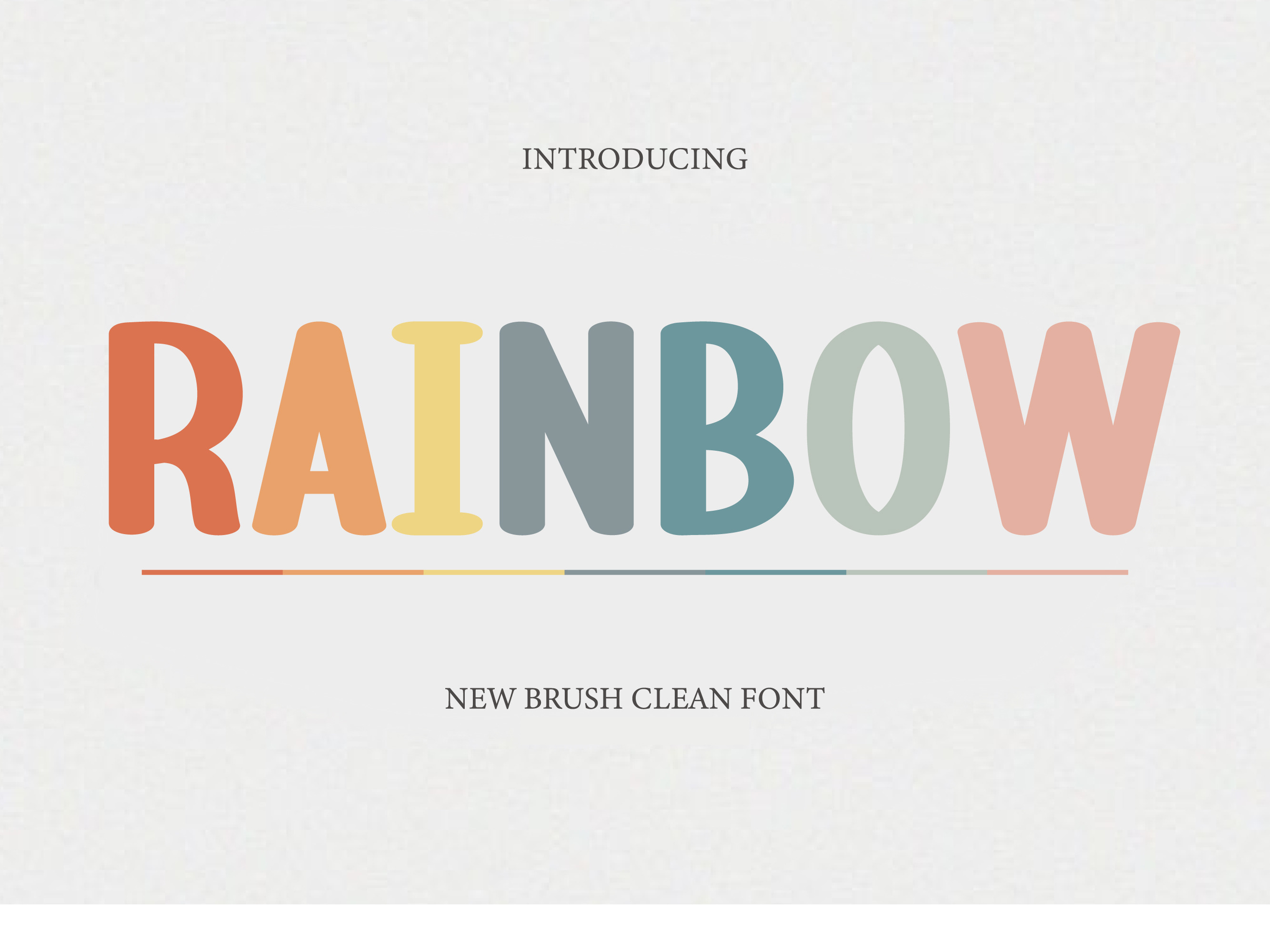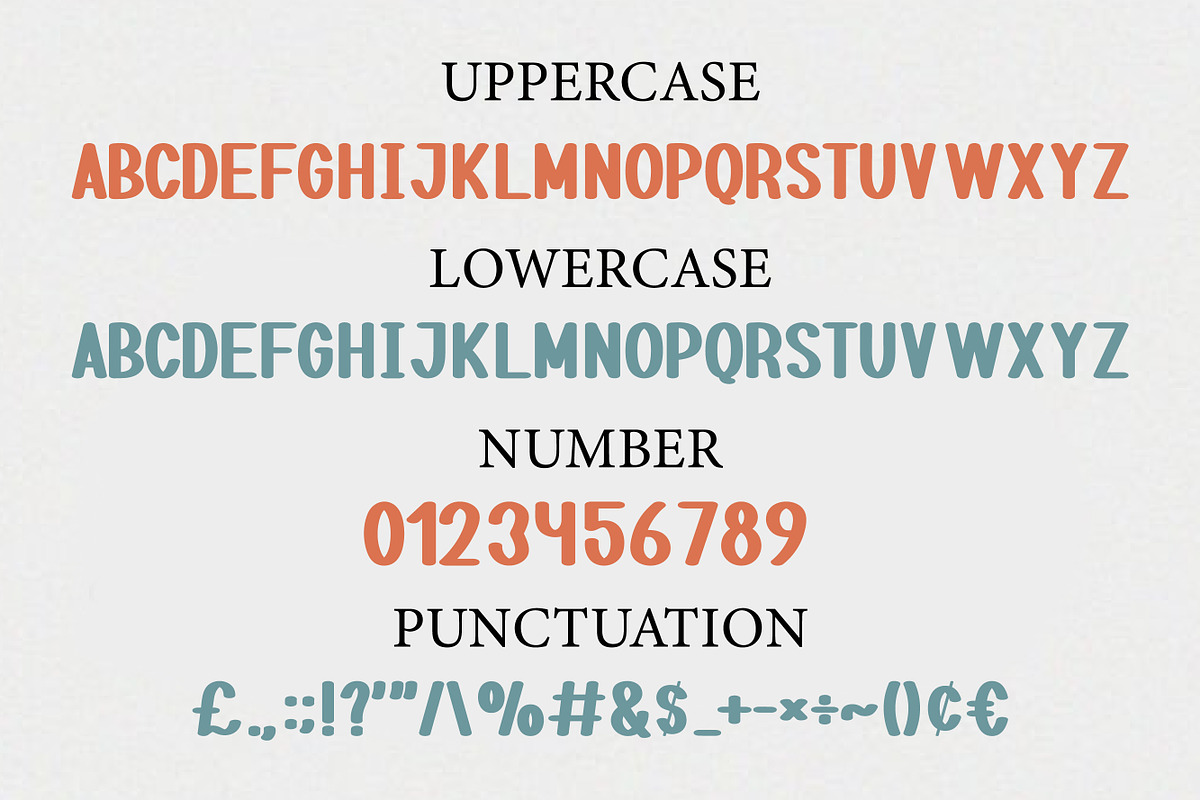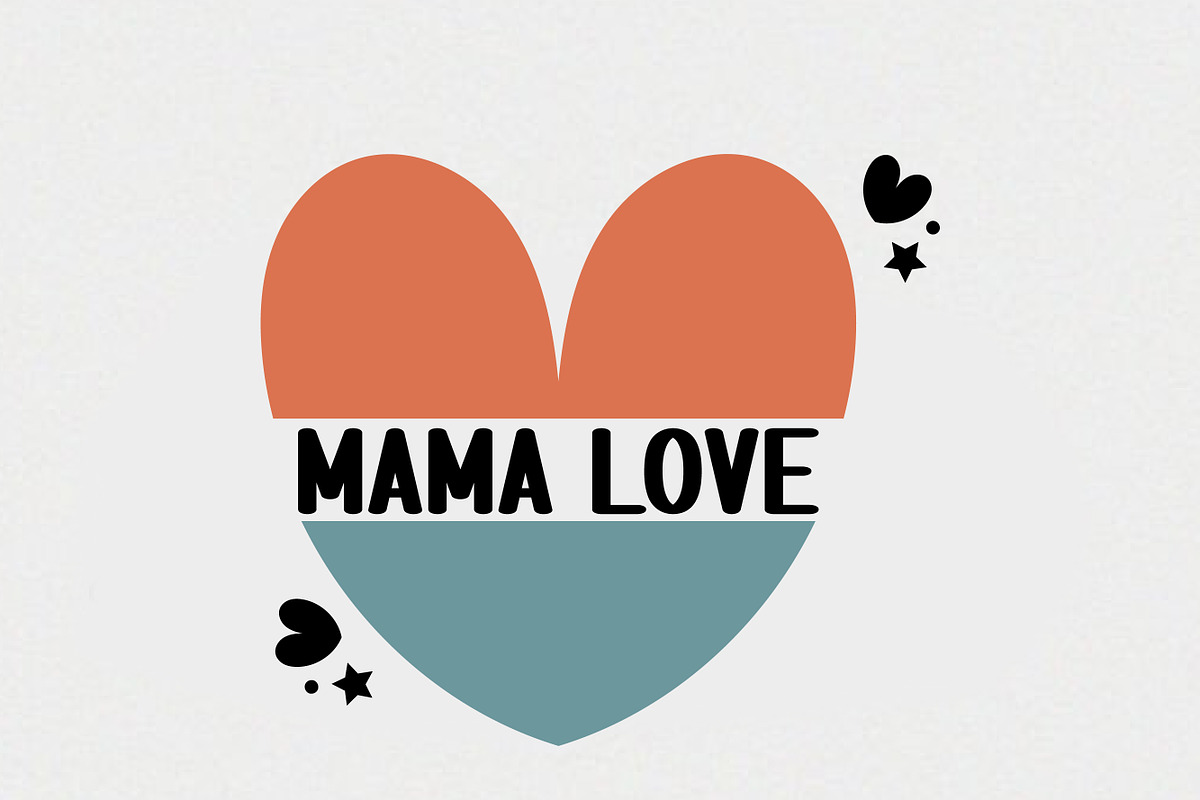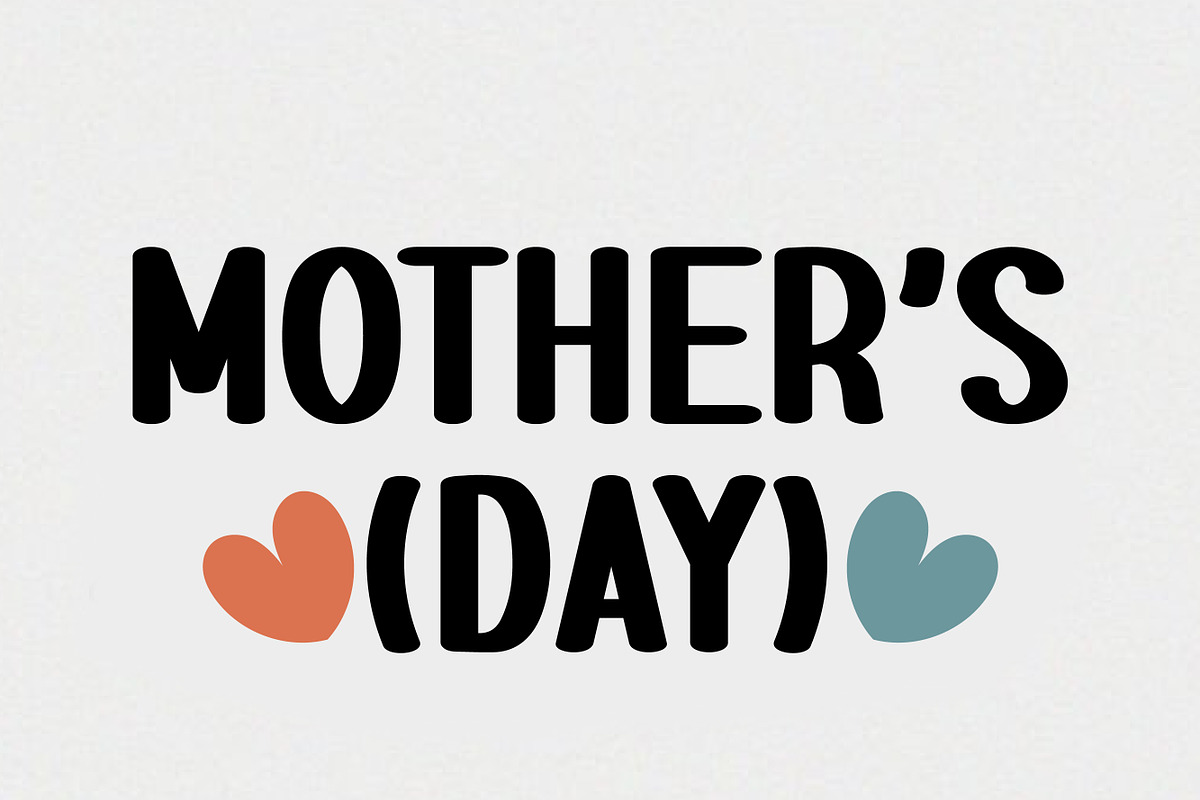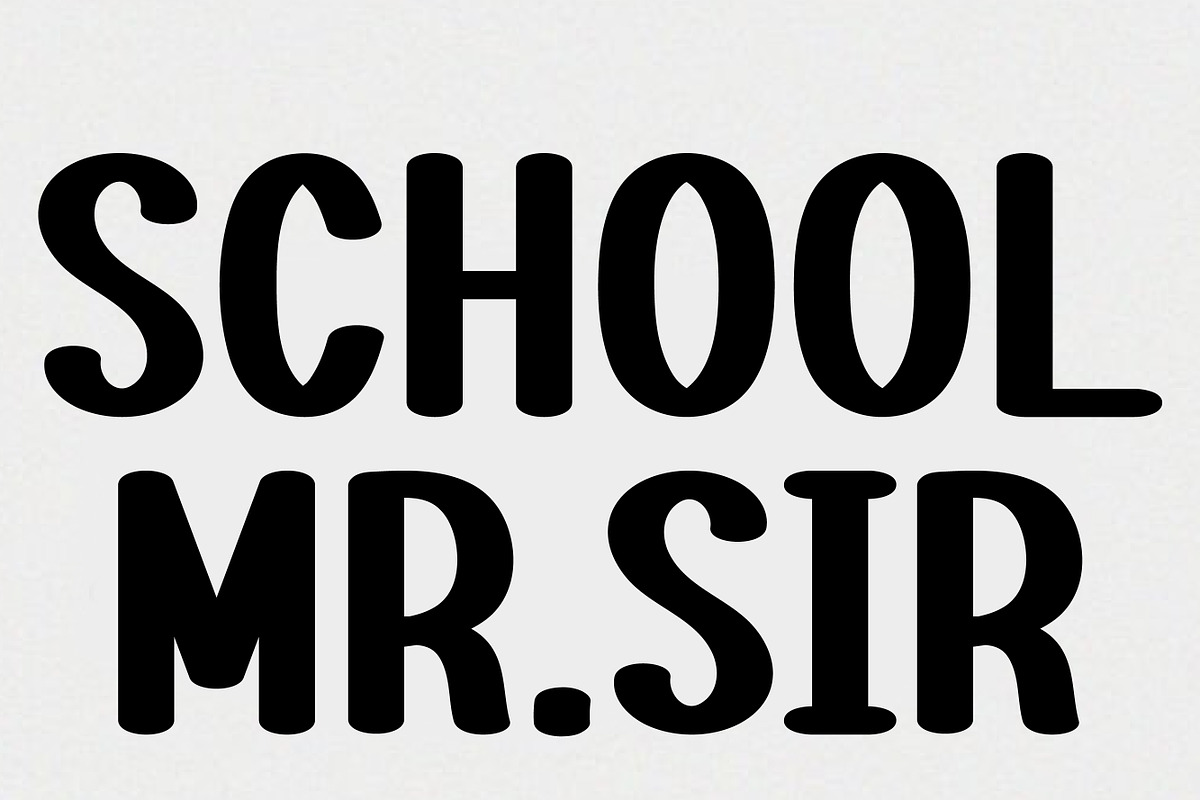
Rainbow - Fun and friendly Font
Rainbow is a fun and friendly handwritten font. with a contemporary atmosphere and impeccable form, inspired by timeless classic calligraphy. It gives personalized to your beautiful craft. It will add elegance and class to any of your design projects.